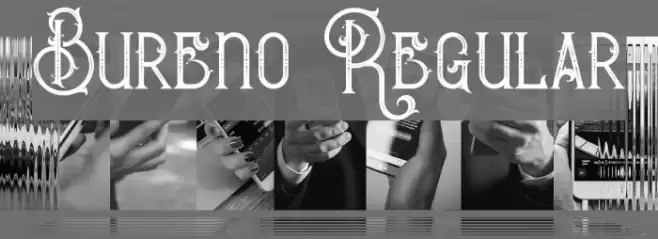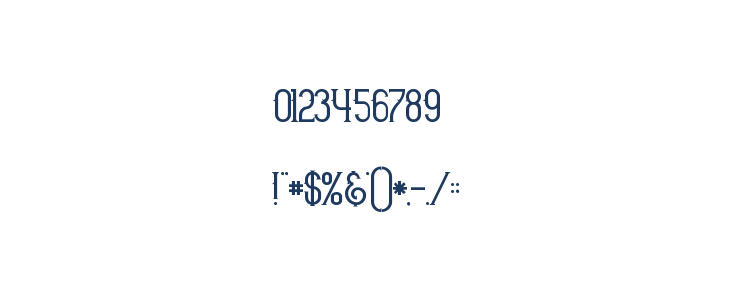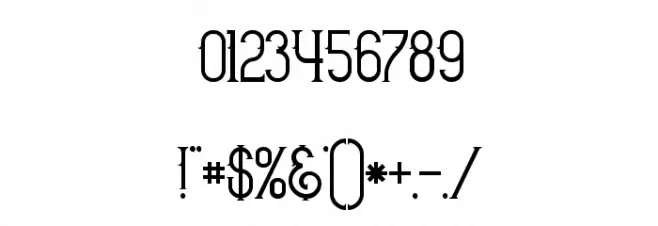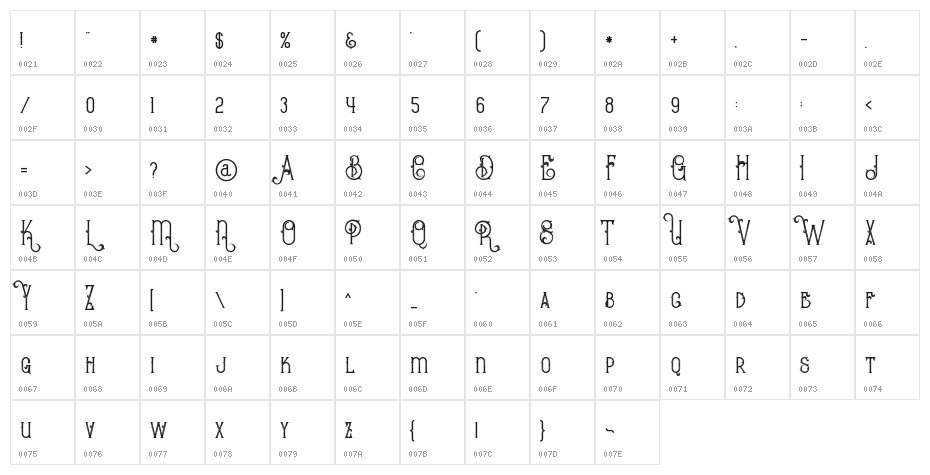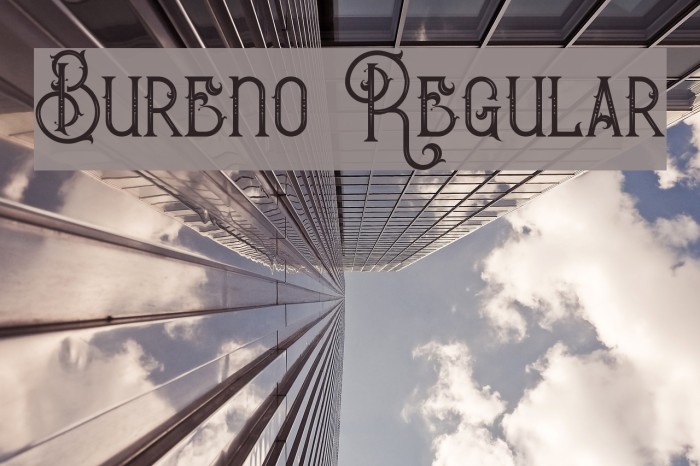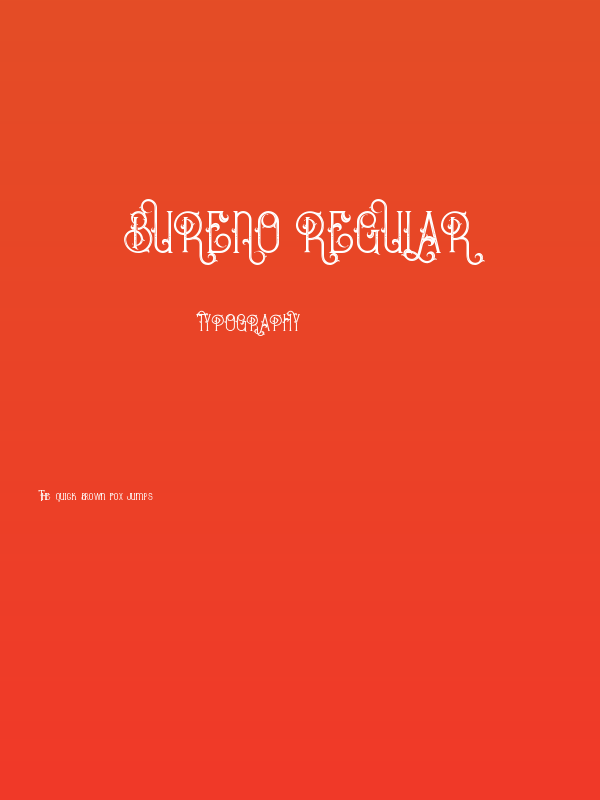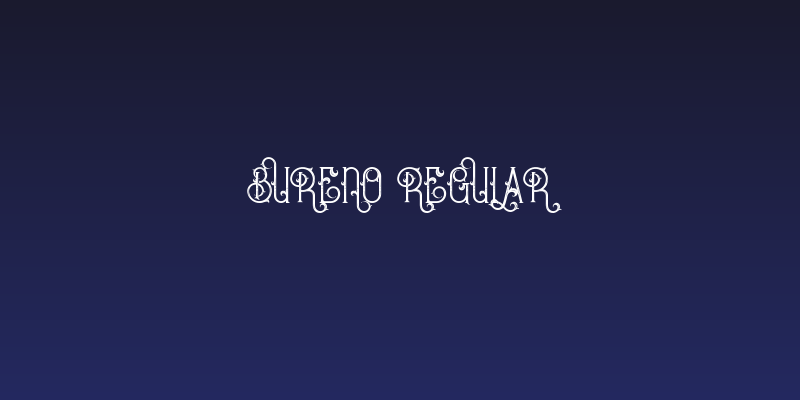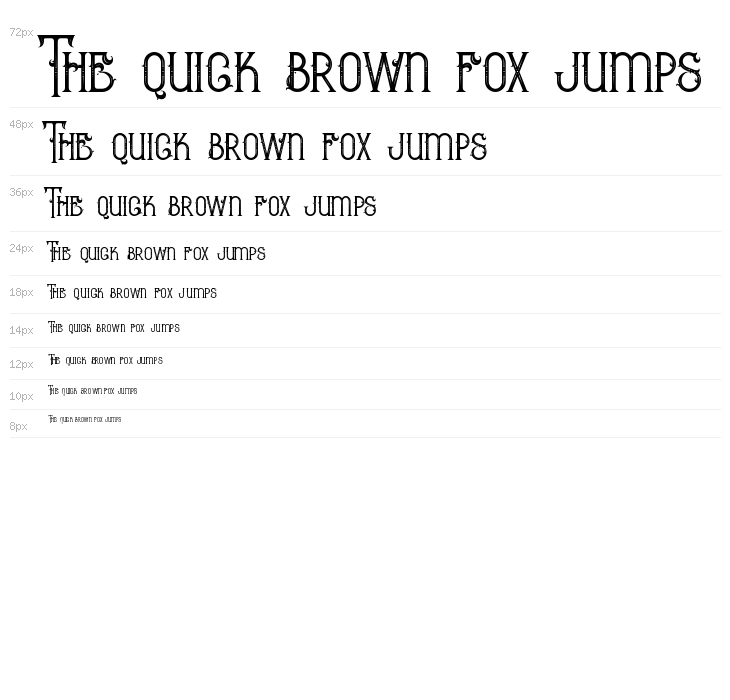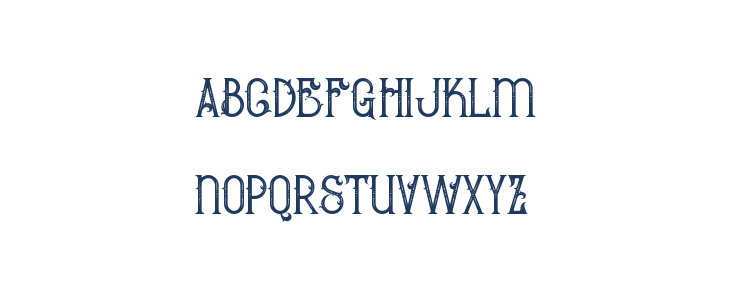
Bureno Regular Font
Bureno Regular Description
This font features an ornate and decorative style, characterized by intricate swirls and embellishments on each letter. The uppercase letters are particularly elaborate, with flourishes that extend from the main strokes, giving it a whimsical and artistic appearance. The lowercase letters maintain a similar decorative theme, though slightly more subdued, ensuring readability while retaining the font's unique flair. The numerals and special characters are designed to match the overall aesthetic, with consistent embellishments that tie the entire character set together. This font is ideal for projects that require a touch of elegance and creativity, making it suitable for invitations, posters, and artistic designs.
An ornate and decorative font with intricate swirls and embellishments from Uncategorized fonts.
- Proposed Projects: Ideal for wedding invitations, artistic posters, and decorative branding.
- Use Case: Headlines, Artistic designs, Invitations